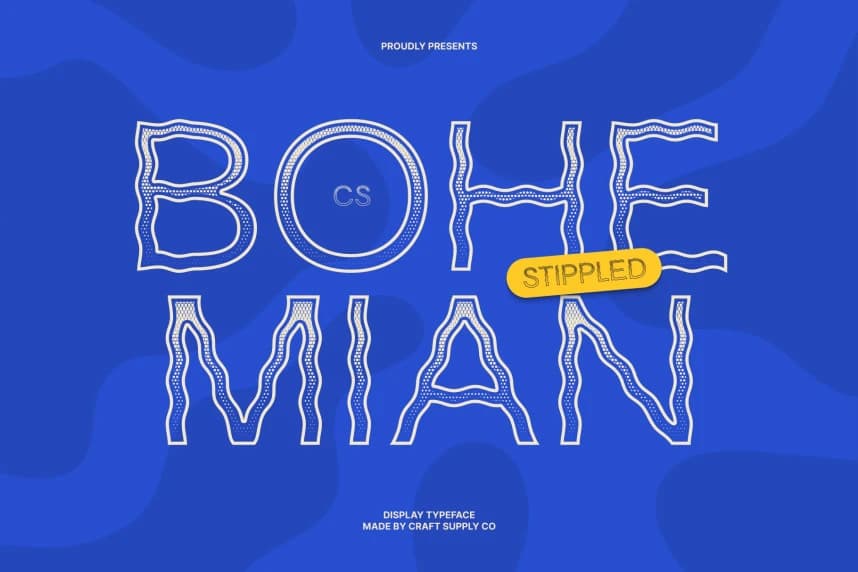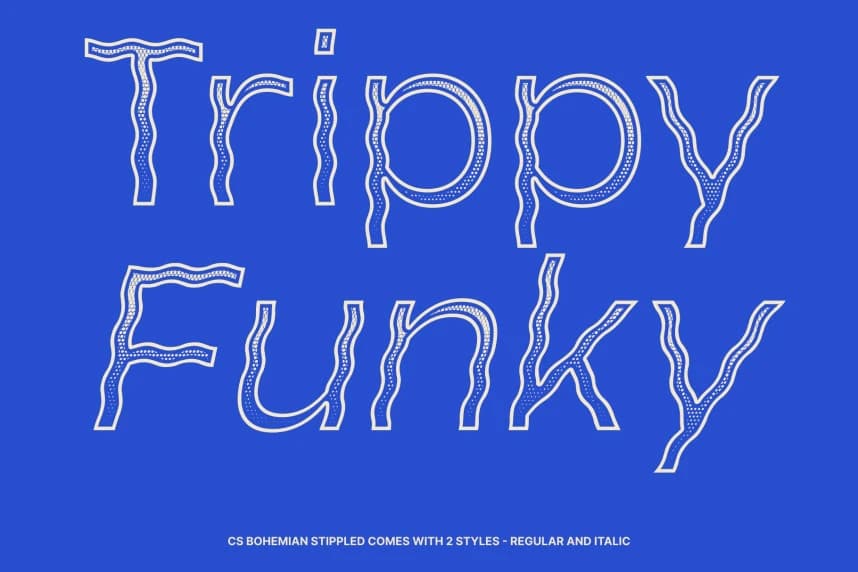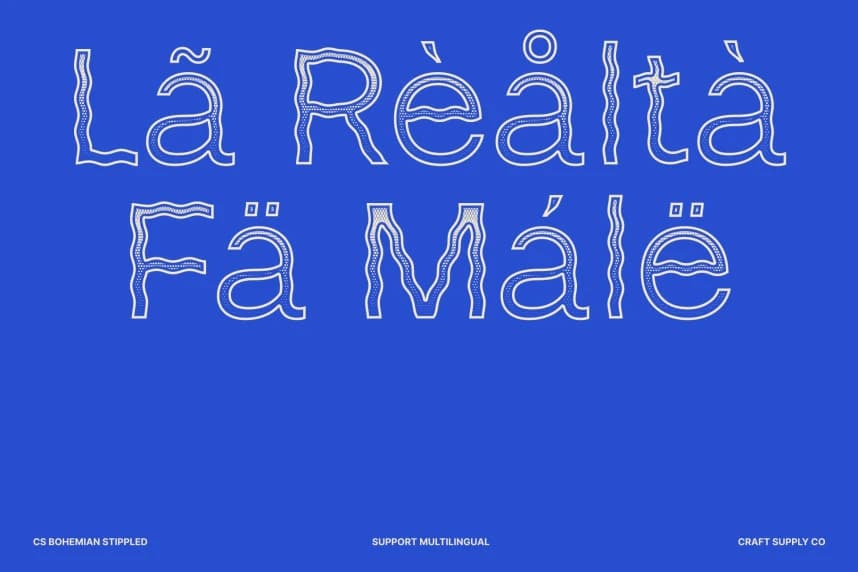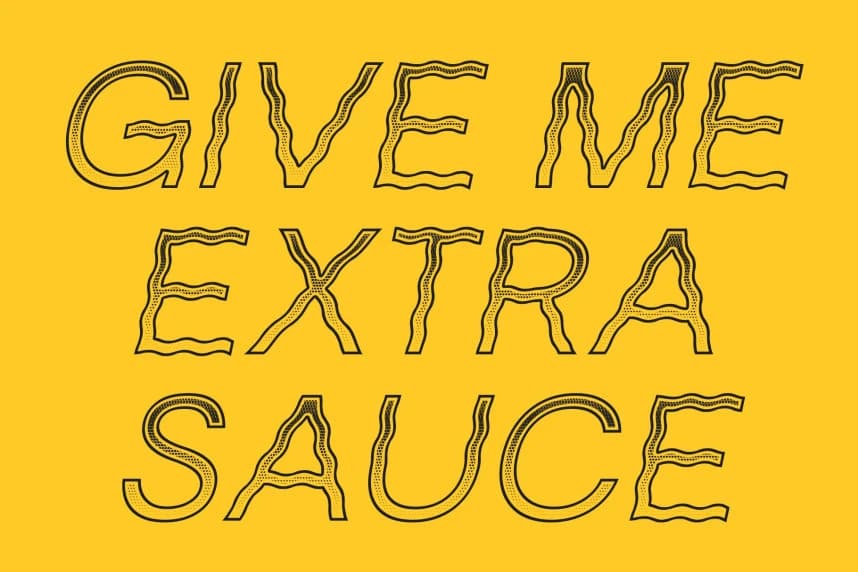
CS Bohemian Stippled Font
CS Bohemian Stippled Font – Psychedelic Sans-Serif with Textured Retro Energy Modern Clean Meets Psychedelic Flair. This is a modern sans-serif font that merges sleek contemporary structure with expressive psychedelic shapes.